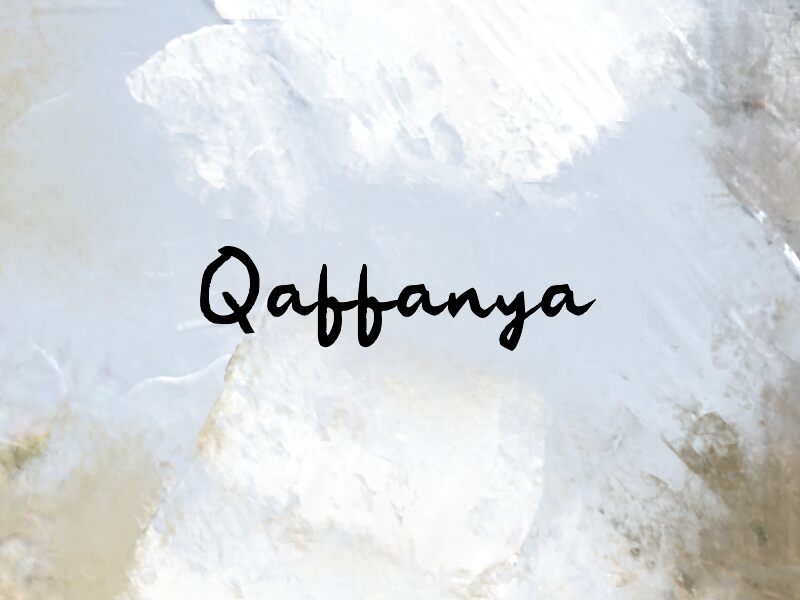
Qaffanya font by wep is a free, friendly handwritten font with an informal and contemporary appearance. Casual with its smooth outline, the font was created with a pen which gives it an organic natural look. The modern font captures the essence of the artistic flow found in human handwriting. At the same time, its visualization represents an updated take on a style often used in the past.
Place Qaffanya in your designs to add a warm fun vibe to your designs. Its beauty is suitable for introduction card designs like wedding invitations, or even event cards like those related to the parents’ day celebration or baby showers. Greeting cards, logos, and branding projects would be a few more areas where Qaffanya will beautifully fit.
Qaffanya is a stylish and contemporary free font that adds flair to any design project. With its unique character shapes and smooth lines, this font can enhance both digital and print designs seamlessly. Perfect for headings, logos, and promotional materials, Qaffanya ensures your content stands out effortlessly.